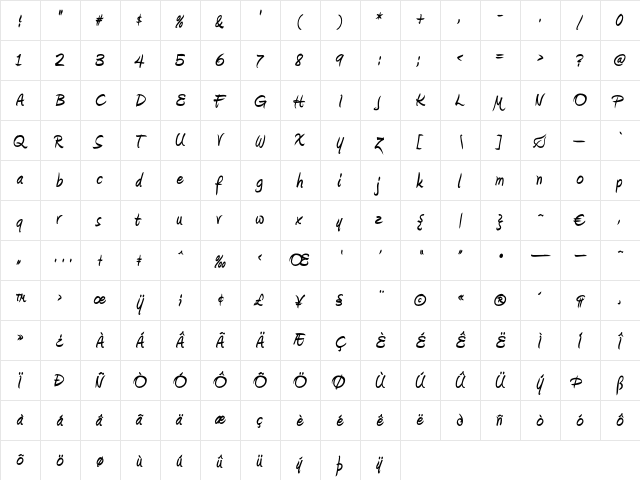
Amienne Bold
Design Context for Amienne Typeface
Amienne is a composed and adaptable typeface that performs quietly and consistently across a wide range of design contexts. Its bold stroke weight gives it real presence on the page.
Pro Tip: Pair Amienne with a font of contrasting weight or personality to build a more expressive typographic hierarchy.